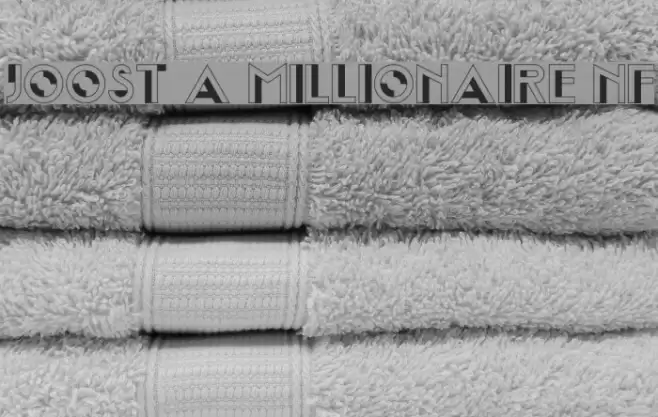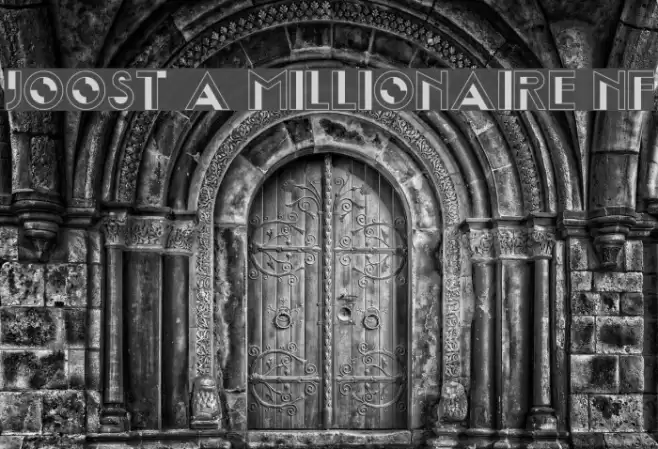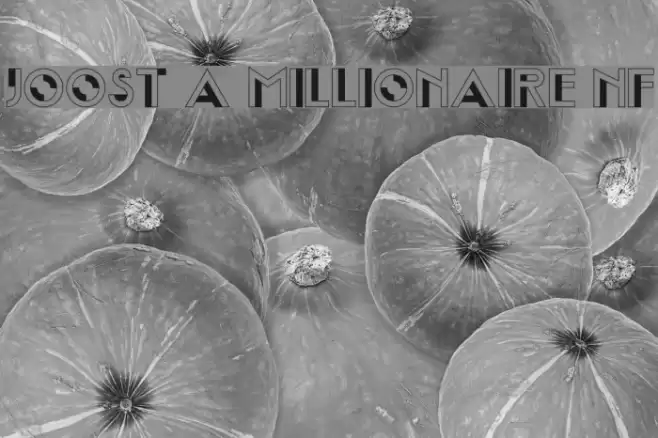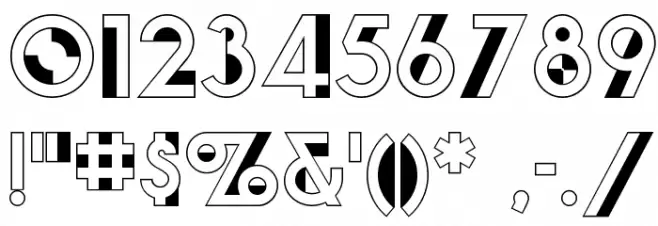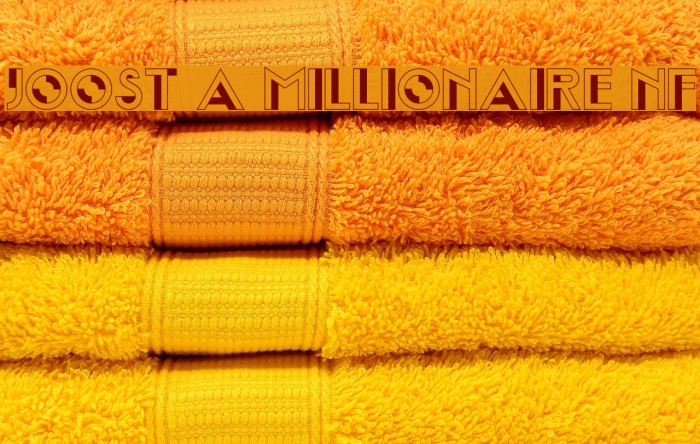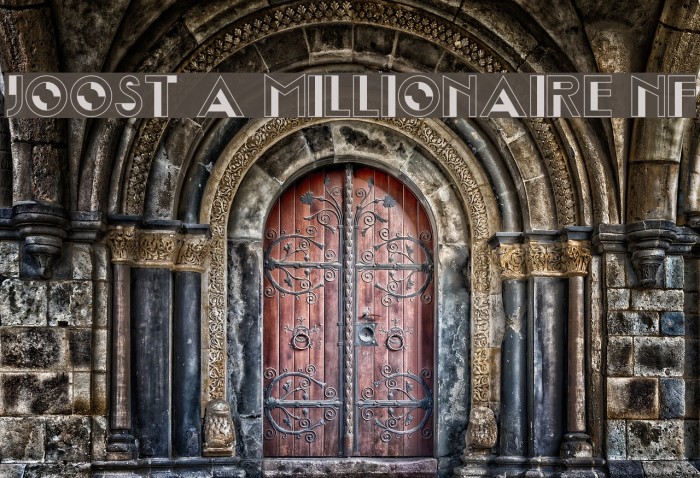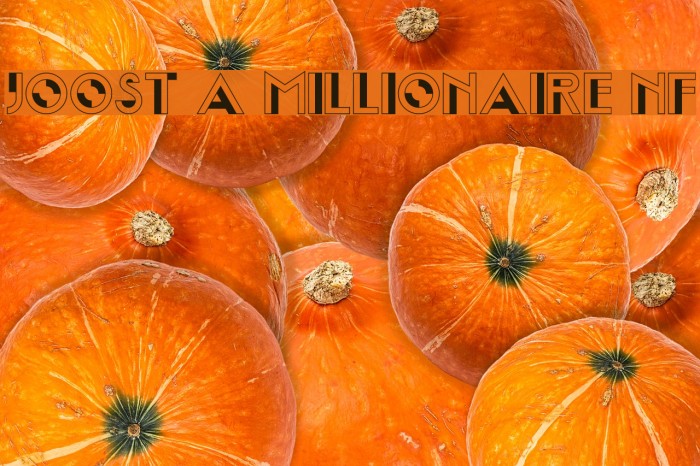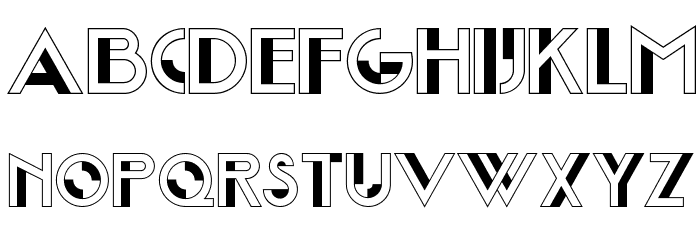
Joost A Millionaire NF Font
Joost A Millionaire NF Description
This font features a bold, geometric design with a unique blend of solid and outlined elements. Each character is crafted with a striking contrast between filled and hollow spaces, creating a dynamic and eye-catching appearance. The uppercase letters exhibit a strong, angular form, while the lowercase letters maintain a consistent style, ensuring readability. Numbers and special characters follow the same design principles, making them cohesive with the alphabet. The font's modern and decorative style is perfect for projects that require a bold statement.
A bold, geometric font with a mix of solid and outlined elements, ideal for decorative use.
- Proposed Projects: This font is perfect for branding, poster design, album covers, and any project that requires a bold, artistic touch.